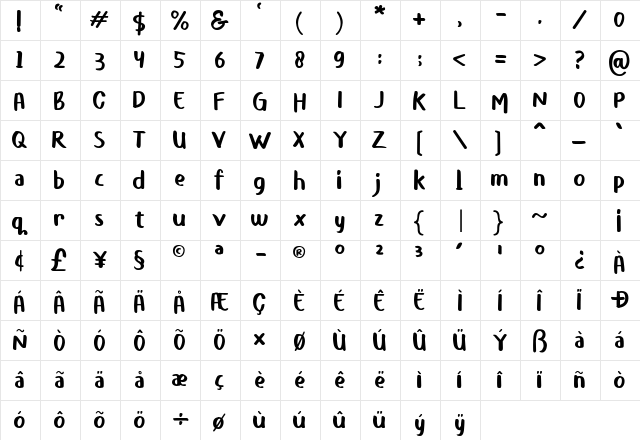
Limonea Regular
Design Context for Limonea Typeface
Limonea is a composed and adaptable typeface that performs quietly and consistently across a wide range of design contexts.